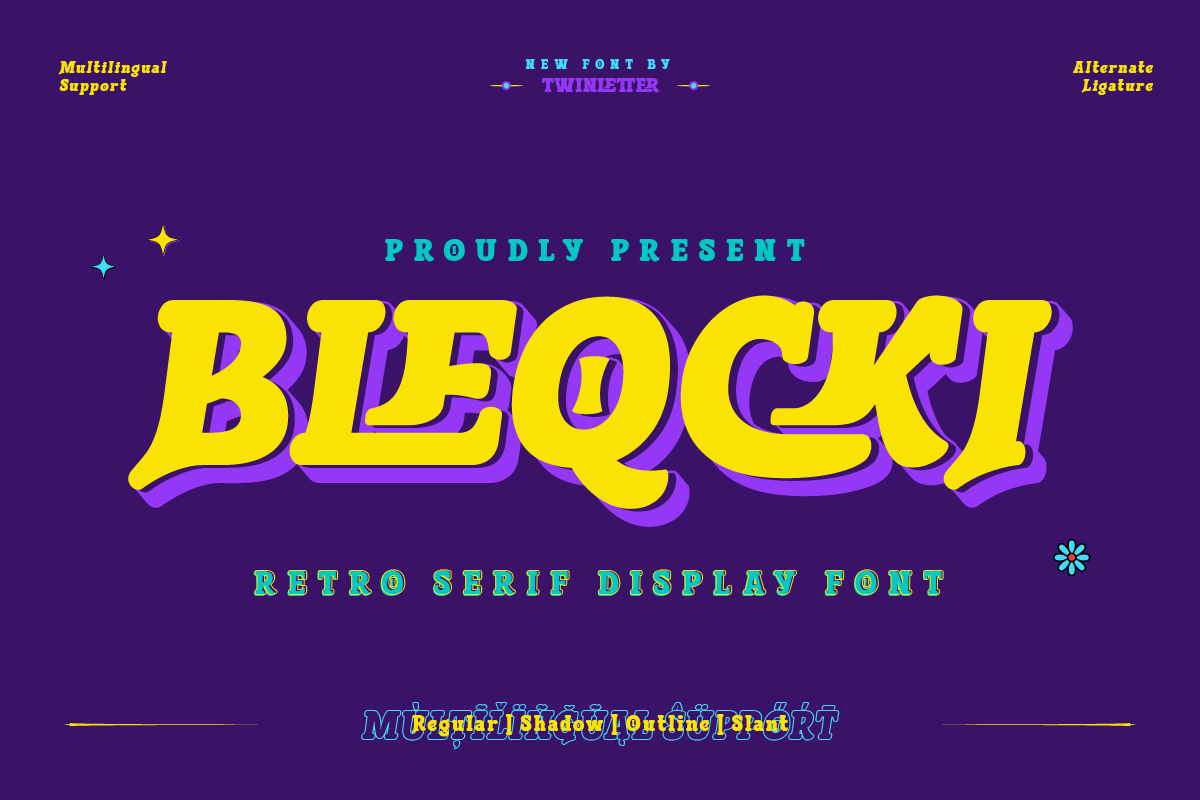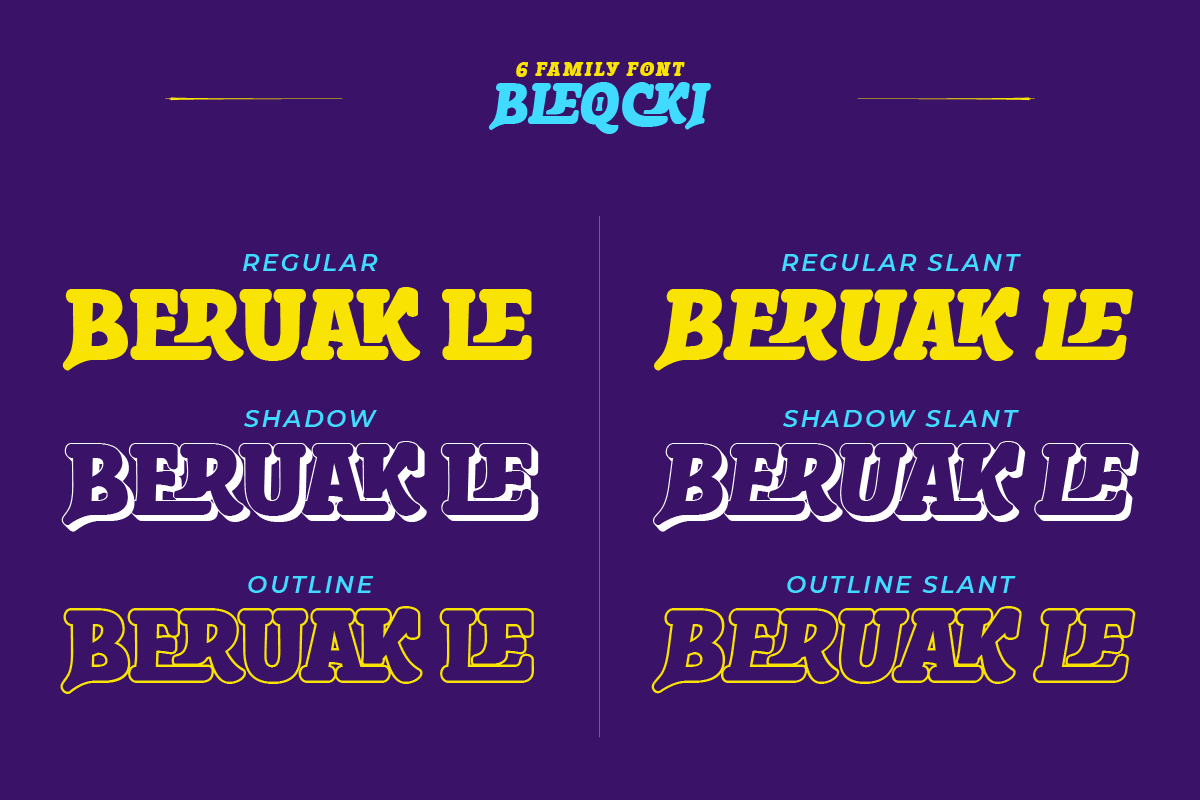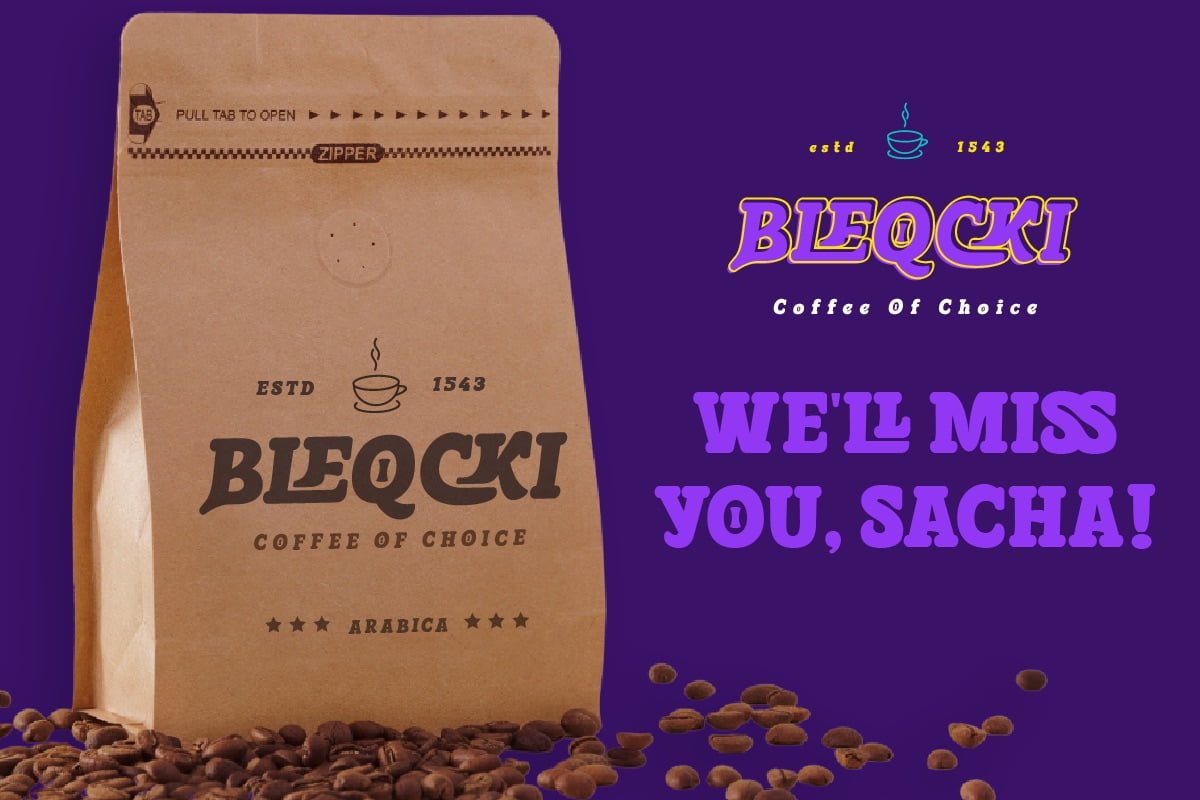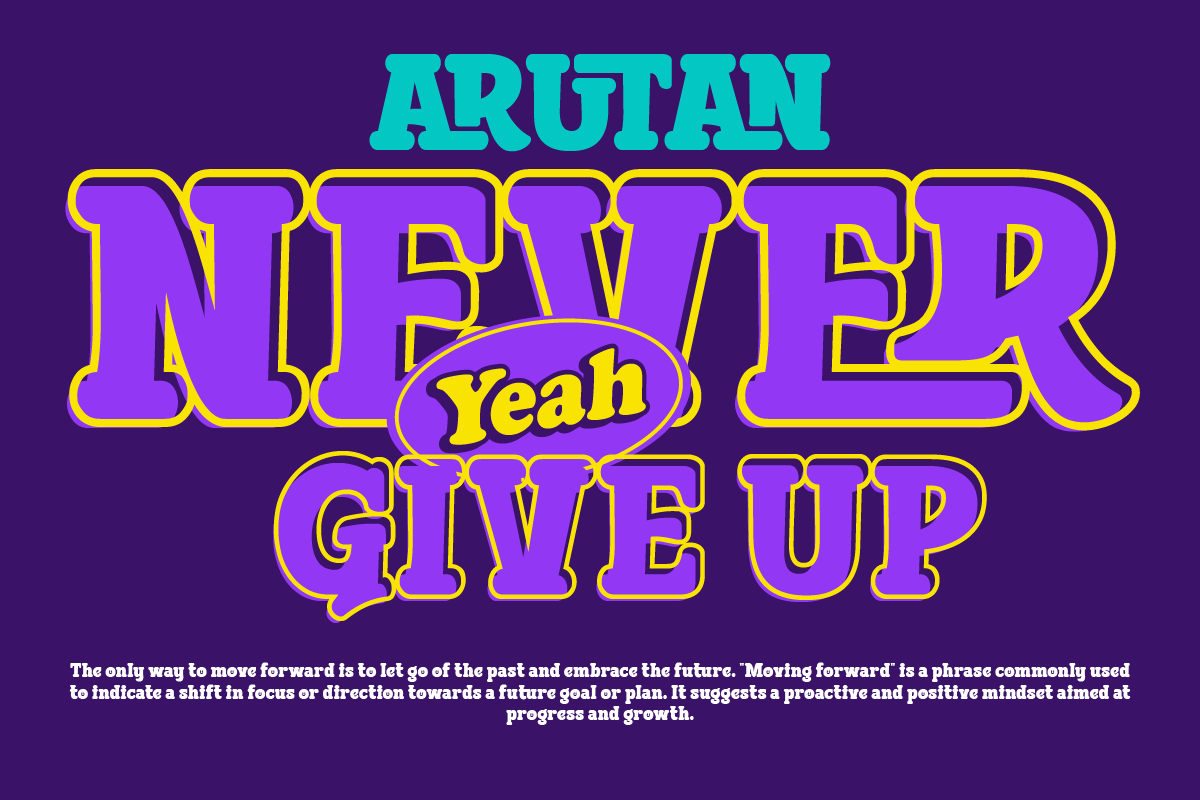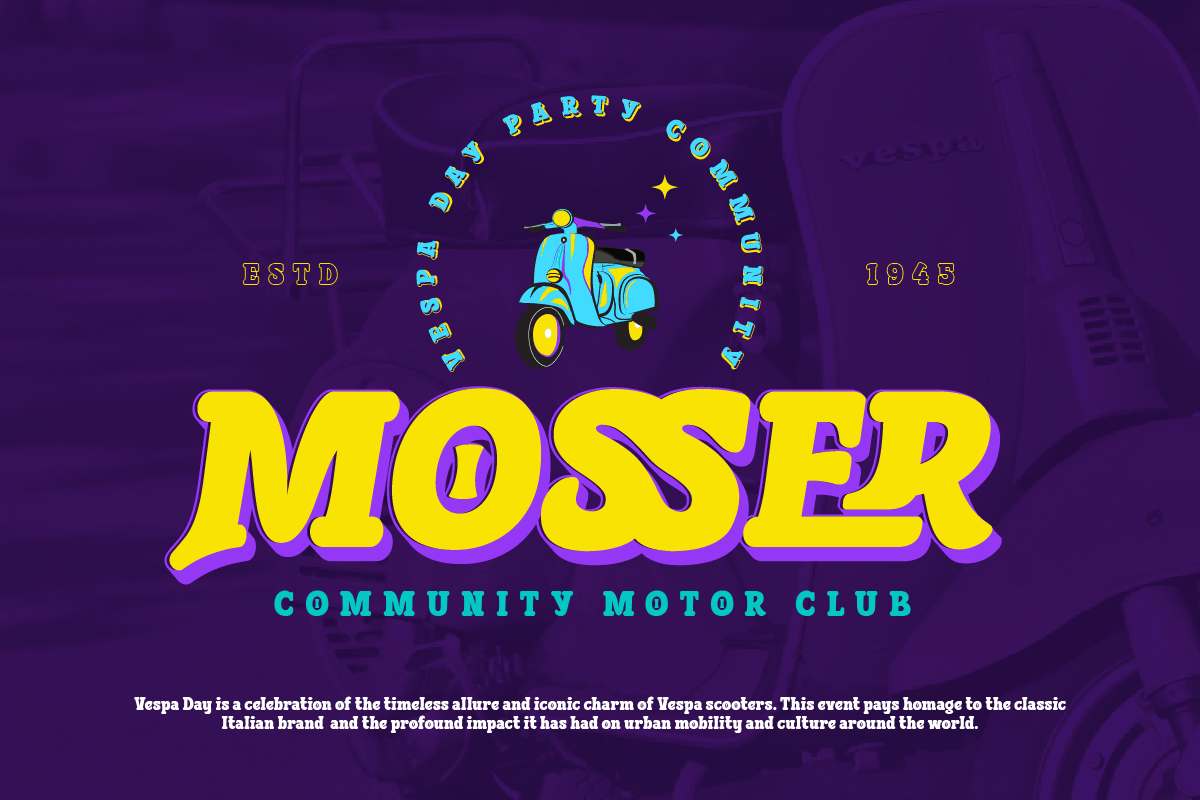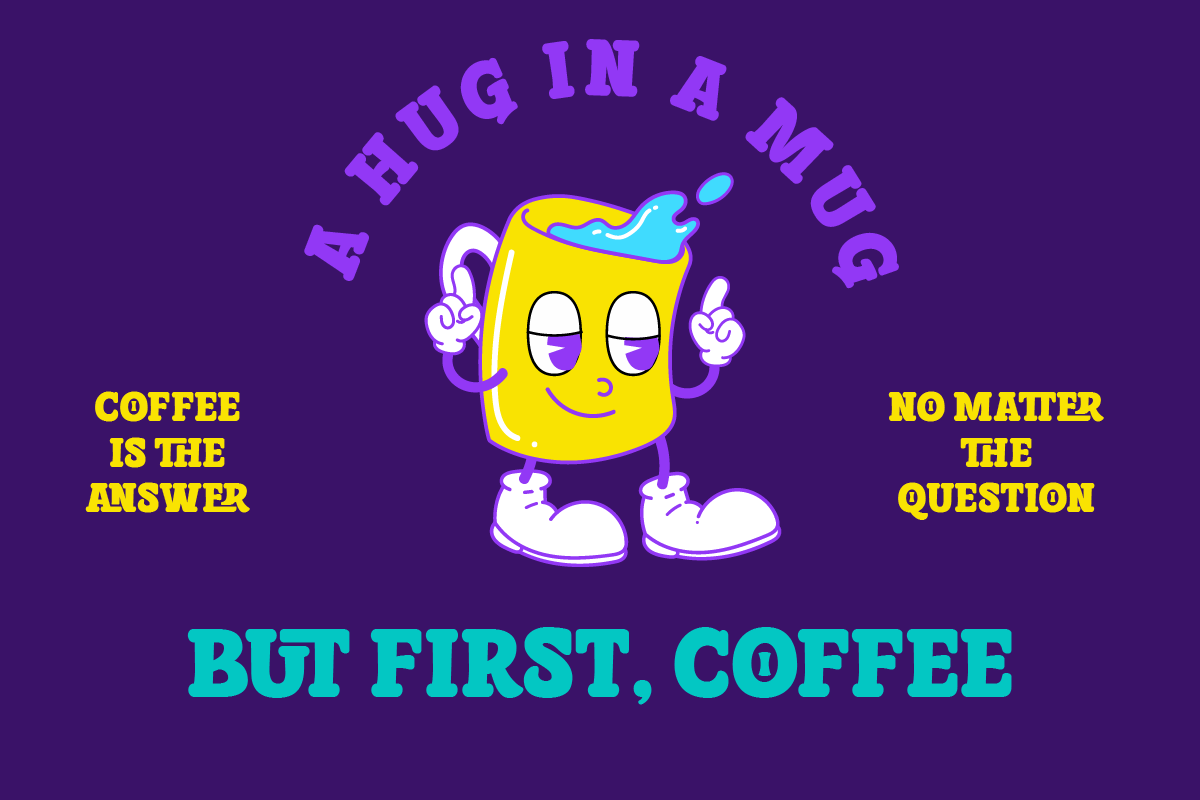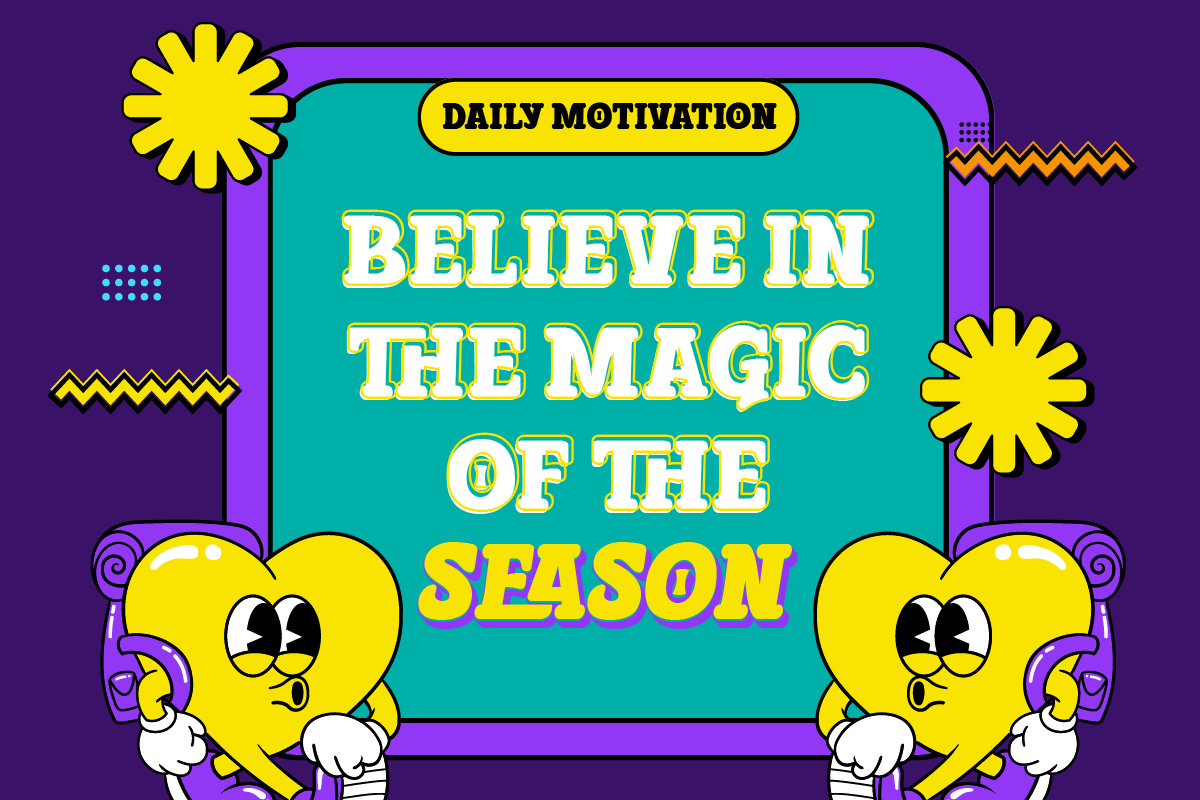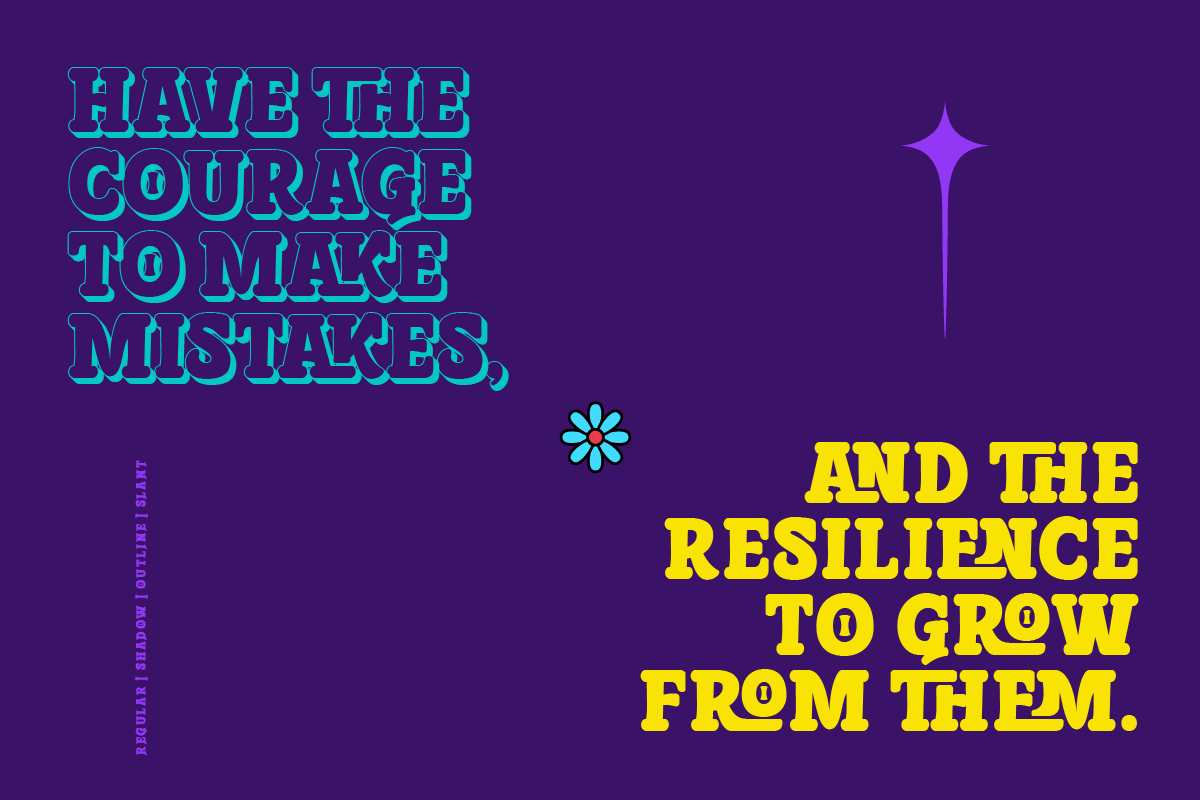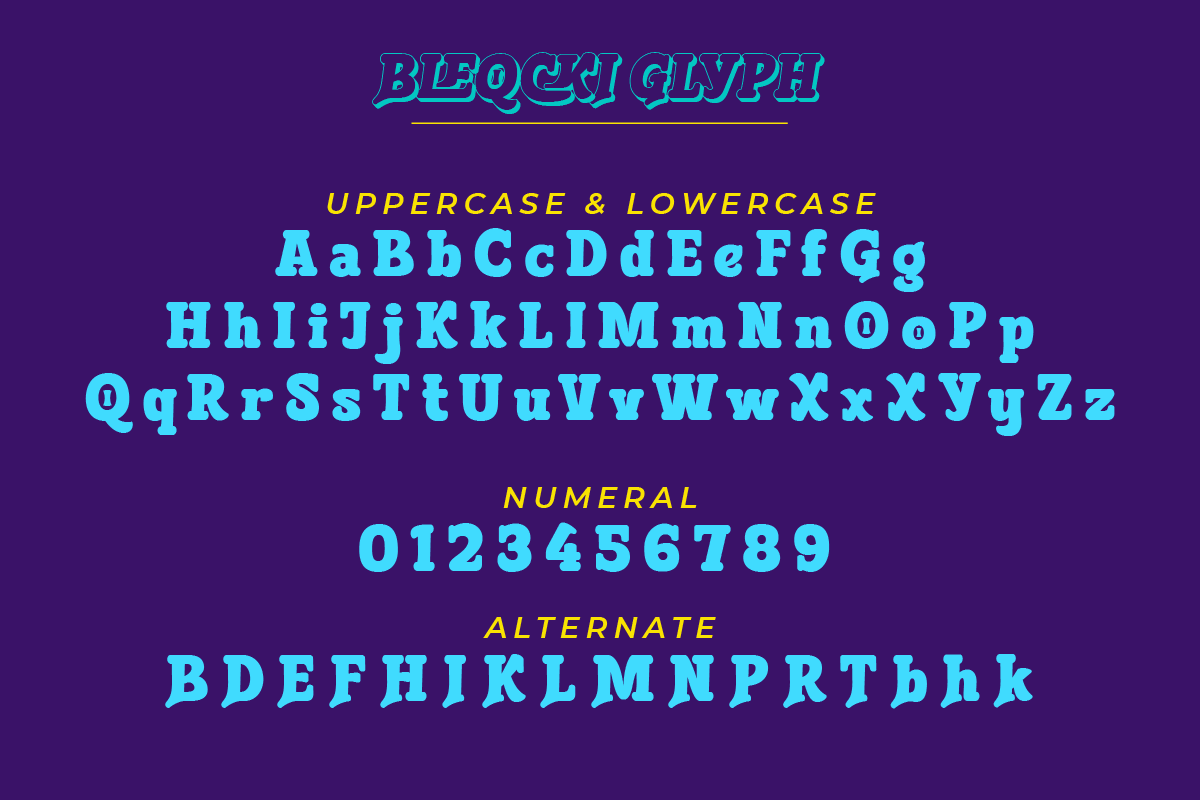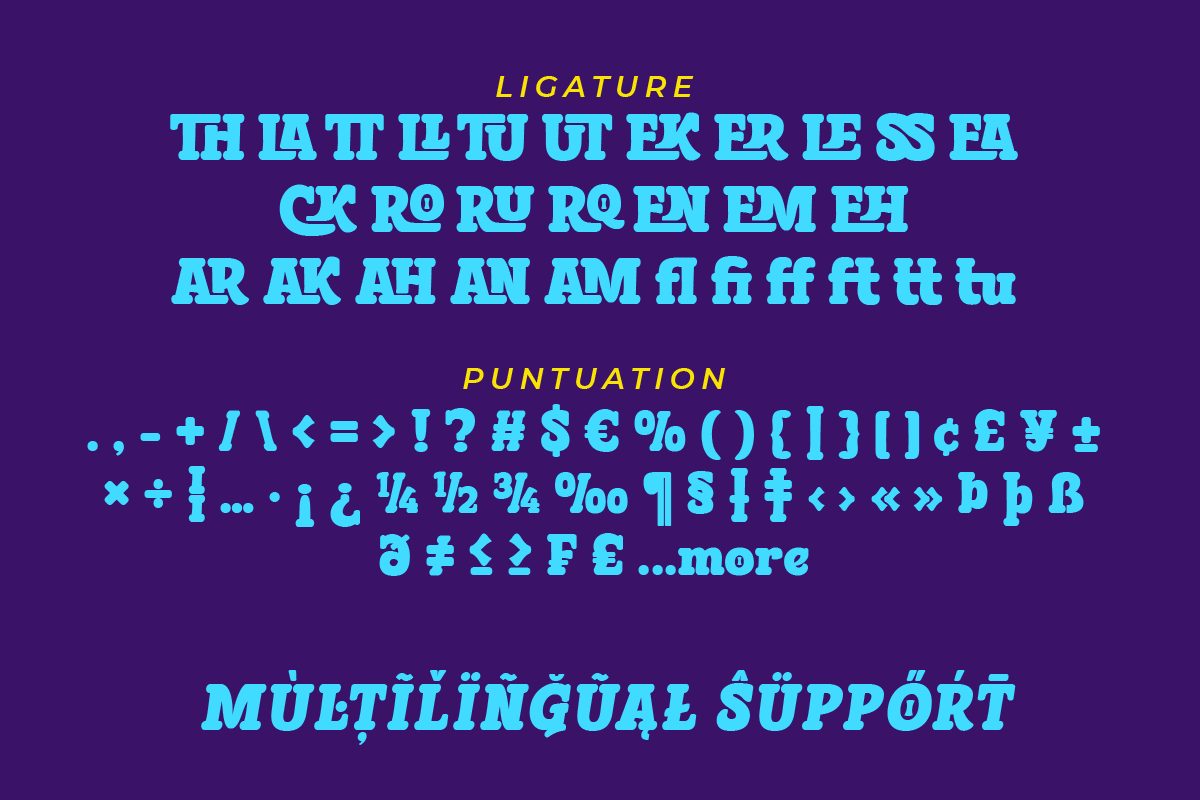
5. Bleqcki – Serif Display
Bleqcki – Serif Display
Welcome to the nostalgic world of typography! Bleqcki is a retro serif display font that brings the strength and beauty of a classic look to your projects. If you are looking for the perfect solution to get a classic and vintage look to various visual branding design projects, then Bleqcki is an unmatched choice.
What makes Bleqcki so interesting? This font not only brings a solid classic feel but also comes with several features that allow you to express your creativity. With families that include regular, shadow, outline, and slant, as well as alternate ligatures and characters. You have a variety of options to create a look that suits your brand identity.
We understand that branding and design projects can be very diverse and reach different audiences around the world. That’s why Bleqcki supports multiple languages, allowing you to communicate with your audience without restrictions.